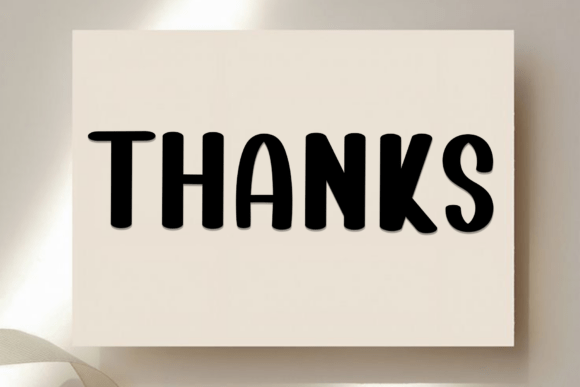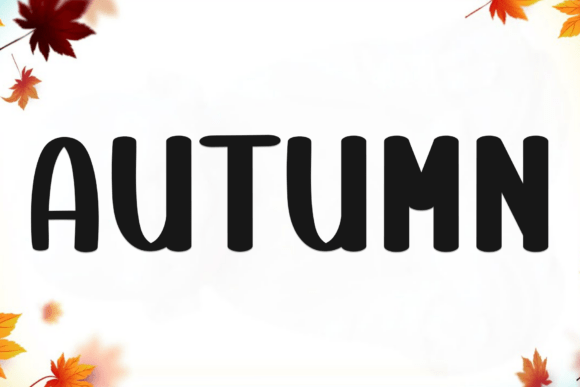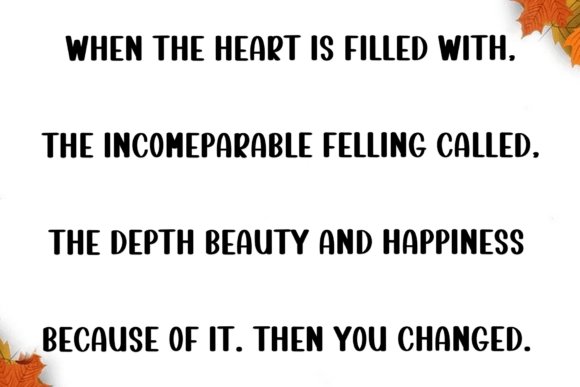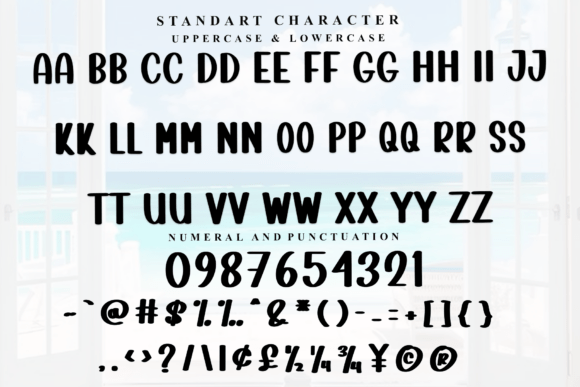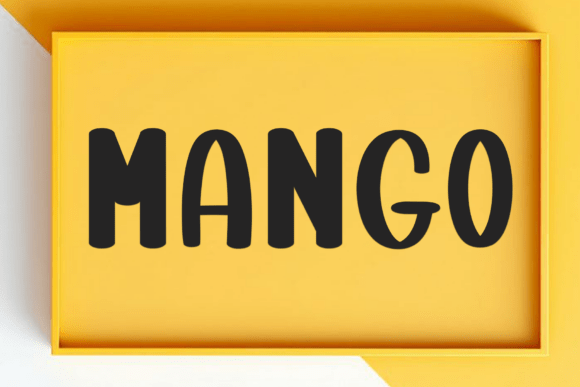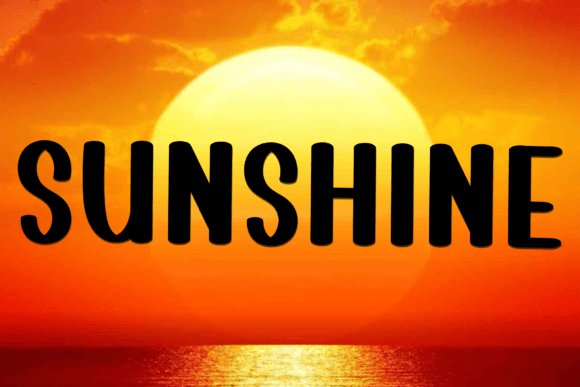
The Magic of Happy September Font: Elevate Your Designs with Whimsy and Charm
I’ll never forget the time I was working on a festive holiday project for a client, and I just couldn’t seem to find the perfect font to capture the essence of the season. The design needed to be merry, bright, and full of cheer, but every font I tried seemed to fall flat. That’s when I stumbled upon the Happy September Font, and let me tell you, it was like a winter wonderland explosion of creativity in my design world! ✨
So, what makes Happy September Font so special? Here’s what I love:
- ✅ Its decorative elements and whimsical flair add a touch of enchantment to any design
- ✅ It’s perfect for a variety of projects, from greeting cards and gift tags to holiday-themed crafts and designs
- ✨ The nostalgic ambiance it brings to your words is simply magical
Now, I’m not going to sugarcoat it – there are a few small quirks to be aware of:
- 🤔 The font might not be the best choice for body text or long-form content, as it’s really designed to shine in headlines and titles
The Story Behind Happy September Font
Legend has it that Happy September Font was created by a team of designers who wanted to capture the magic of the holiday season in a single typeface. They spent countless hours perfecting the decorative elements, glyphs, and ligatures to create a font that’s both festive and elegant. And the rest, as they say, is history! 🎄
| Font Name | Happy September Font |
| Is Happy September Font suitable for body text? | While Happy September Font is a beautiful and festive font, it’s really designed to shine in headlines and titles. It’s not recommended for body text or long-form content, as it may be difficult to read. |